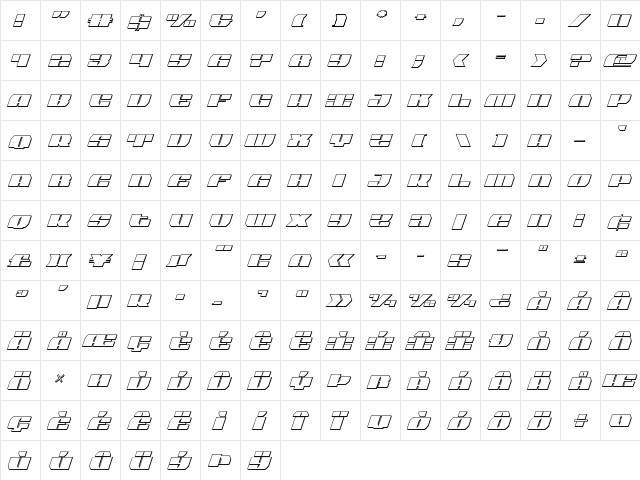
Joy Shark Outline Semi-ConItal Outline Semi-Condensed Italic
Outline Semi-Condensed Italic ·  Daniel Zadorozny ·
StyleOutline Semi-Condensed Italic
DesignerDaniel Zadorozny
Design Context for Joy Shark Outline Semi-ConItal Typeface
Joy Shark Outline Semi-ConItal is built around its visual character rather than neutral utility — its distinctive forms are designed to make an impression at display sizes. The dynamic lean of this cut emphasises speed and emphasis in any layout.
Font Pairing: Pair with a clean neutral sans-serif for body copy to let Joy Shark Outline Semi-ConItal's character lead without overwhelming the composition.
Pro Tip: Use Joy Shark Outline Semi-ConItal exclusively at display sizes — it was designed to be seen, not read at length. Let a neutral companion handle body copy.